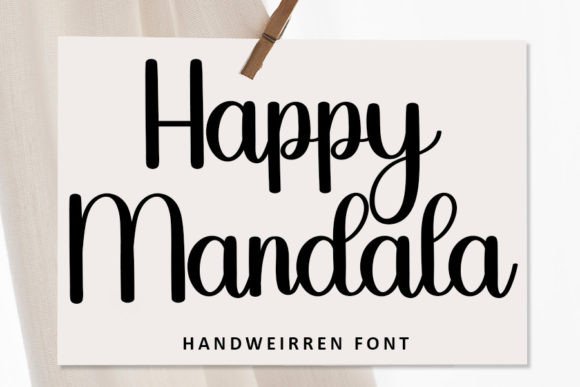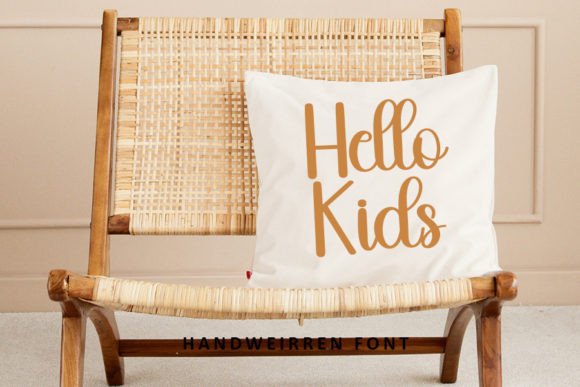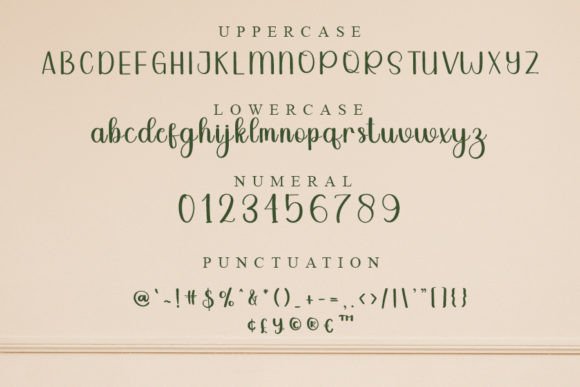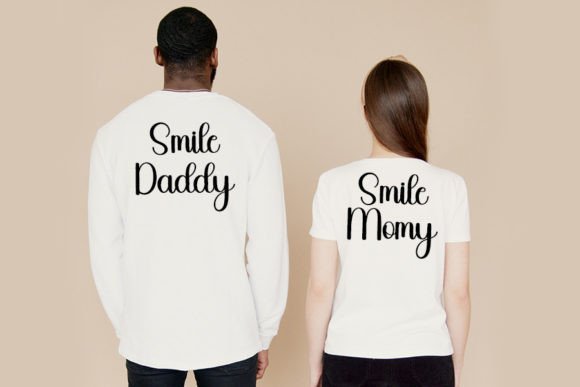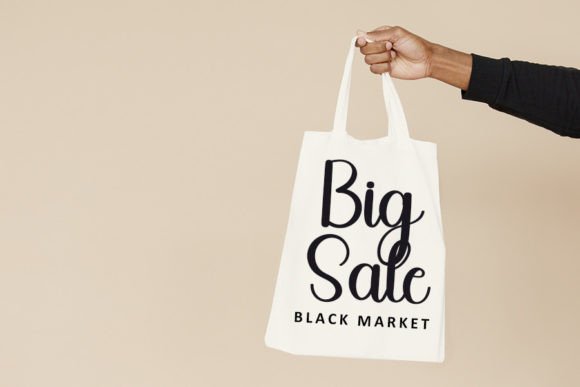
Happy Mandala Font
**Happy Mandala: The Joyful Essence of Handwritten Charm**
**Happy Mandala** isn’t just a font; it’s a burst of joy and creativity in every stroke. With a friendly handwritten style, this font is a delightful addition to your font library, ready to infuse life into all your creative projects.
The essence of **Happy Mandala** lies in its approachable design. Every letter exudes a sense of happiness and warmth, making it an ideal choice for a wide array of applications. Whether you’re working on greeting cards, joyful social media posts, uplifting quotes, or any project that requires a touch of happiness, **Happy Mandala** is your go-to companion.
Crafted with care, this font brings a personal and authentic touch to your designs. It’s akin to a friendly note or a warm message, establishing a connection with your audience. The balanced and well-crafted characters ensure legibility and visual appeal, allowing your joyful message to shine through with style.
Versatility is a strong suit of **Happy Mandala**. It seamlessly adapts to different design contexts, making it suitable for both digital and print applications. From cheerful posters and banners to whimsical invitations and beyond, **Happy Mandala** brings a joyful spirit to every project.
Whether you’re a seasoned designer or someone exploring the realms of creativity, **Happy Mandala** is a delightful tool that adds a touch of happiness to your visual storytelling. Embrace its joyful charm and let it transform your projects into celebrations. Make your designs happier with the lively and cheerful spirit of **Happy Mandala**.